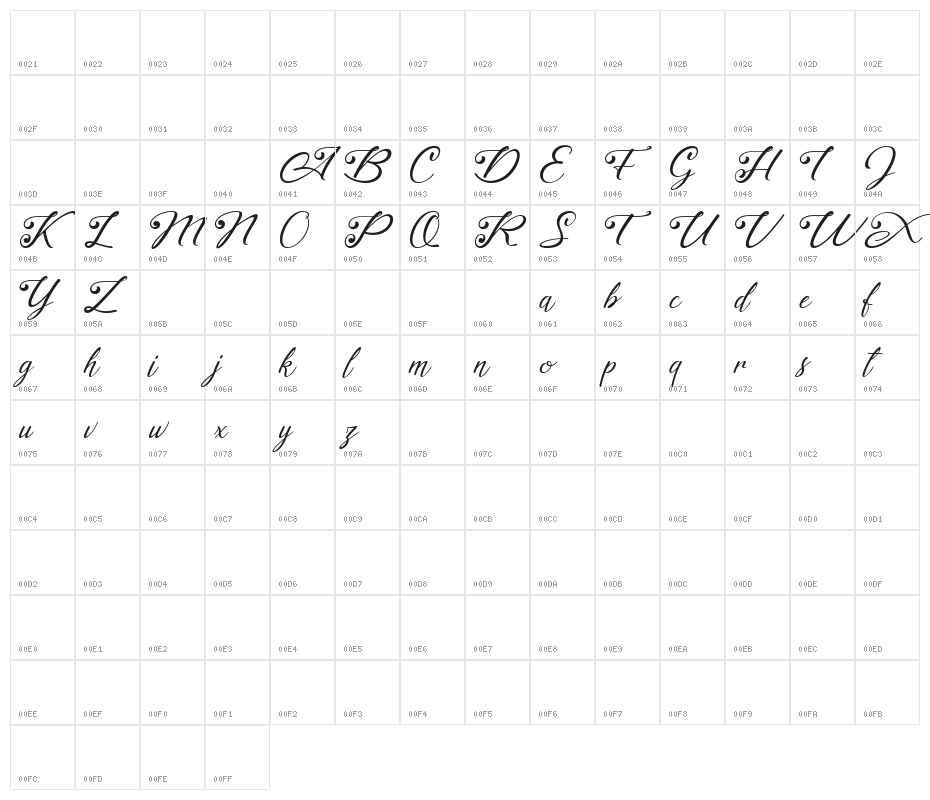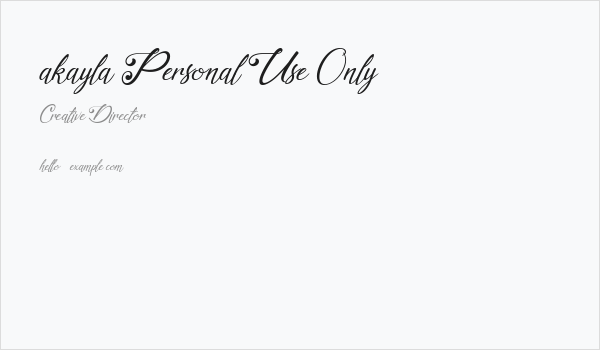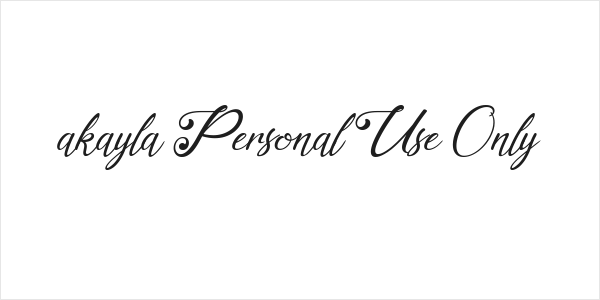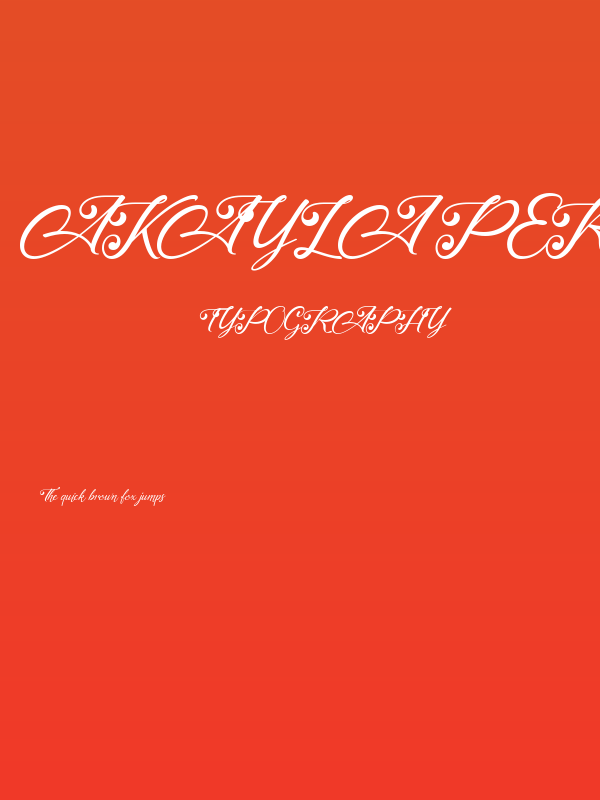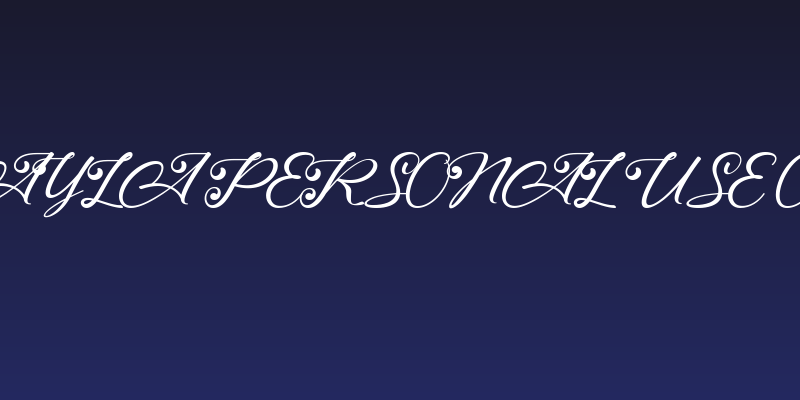
akayla Personal Use Only Font
akayla Personal Use Only Description
This elegant script font features a flowing, cursive style with graceful loops and swashes. The uppercase letters are ornate, with intricate flourishes that add a touch of sophistication. The lowercase letters maintain a consistent slant, enhancing the font's fluidity and elegance. The characters are well-balanced, with a harmonious blend of thick and thin strokes that create a dynamic contrast. This font exudes a sense of refinement and is ideal for projects that require a touch of class and elegance.
| Proposed Projects | Ideal for wedding invitations, elegant branding, greeting cards, and luxury packaging. |